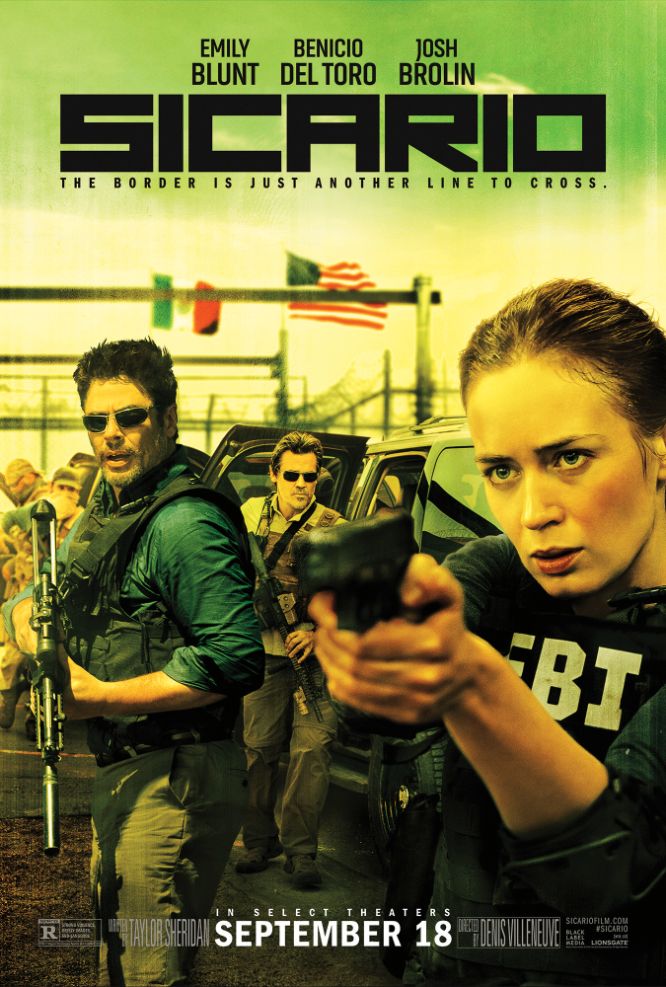
Sicario [Movie] Font
CrimeSicario is a 2015 crime-thriller film directed by Denis Villeneuve, starring Emily Blunt as an FBI agent who joins a task force on a dangerous mission to take down a powerful drug cartel in Mexico.